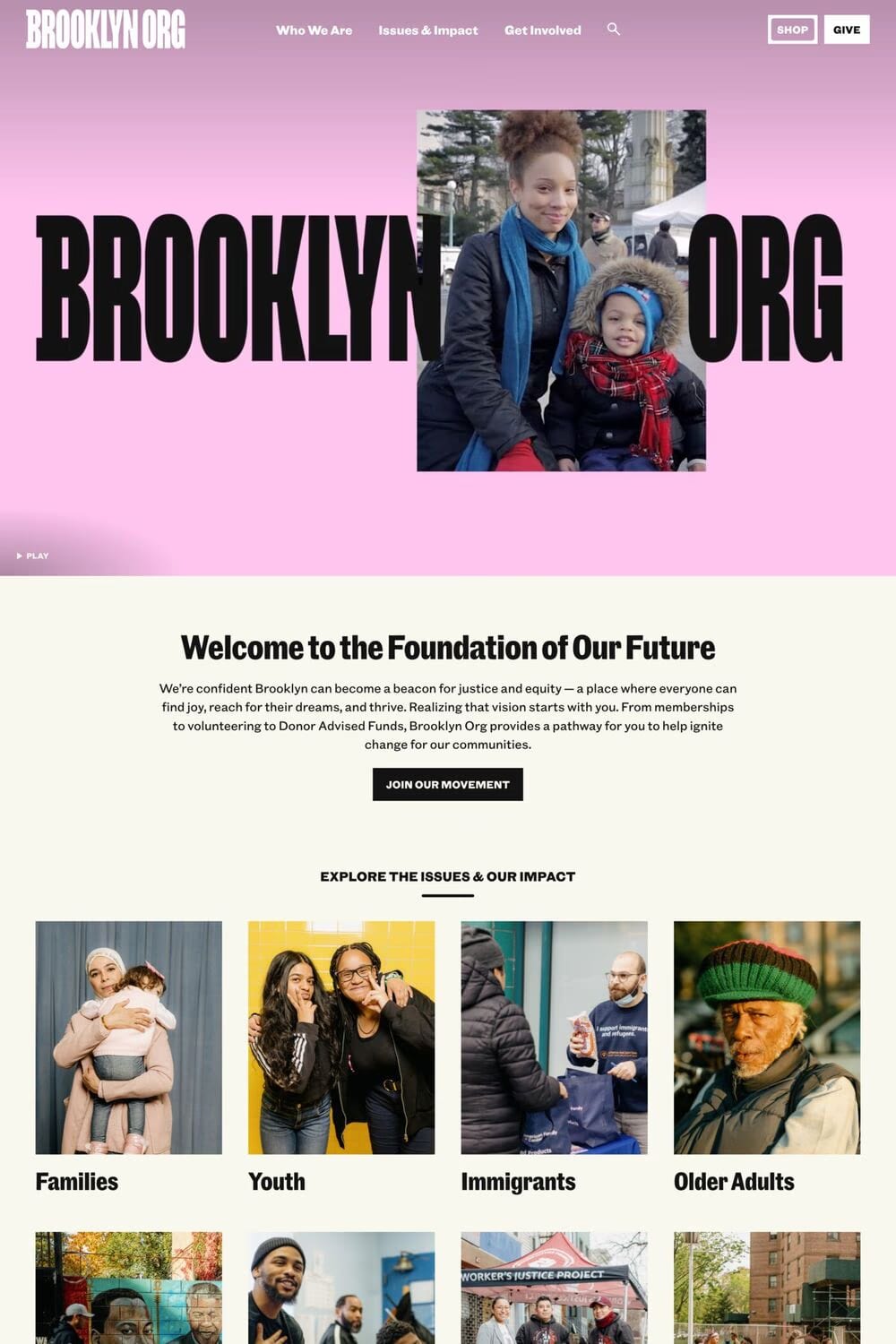
Community Gothic is a sans-serif typeface from Frere Jones.
Community Gothic revives not only the gritty forms of this genre, but the patchwork sets assembled by typefounders and printers alike. So each style was conceived and drawn independently, but integrated in a conventional progression of weights and widths for intuitive use.